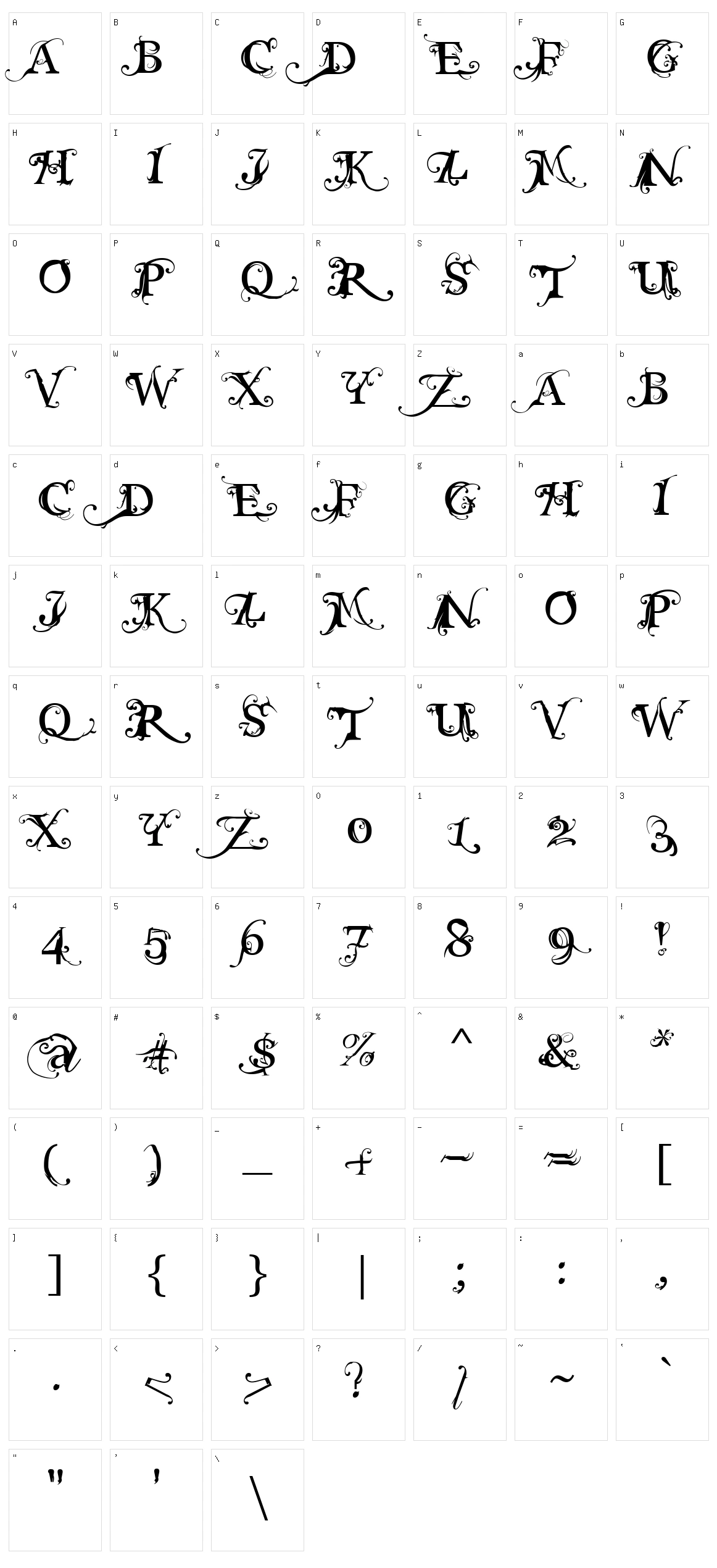
The free font Macabra is carefully designed by Marcio Hirosse /// Fabrika De Typos, showcasing a thoughtful balance of creativity and usability and belongs to the Gothic font family. When you download the ZIP file, it contains only 75.56 KB of font files, making it lightweight and quick to download. Please review the license details below to understand permitted usage and distribution rights. If license information is not available, we recommend using this font for personal projects only or contacting the author directly for commercial usage permissions.